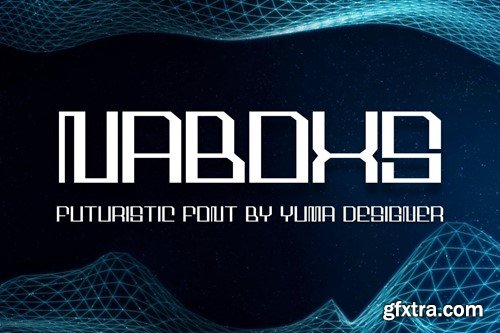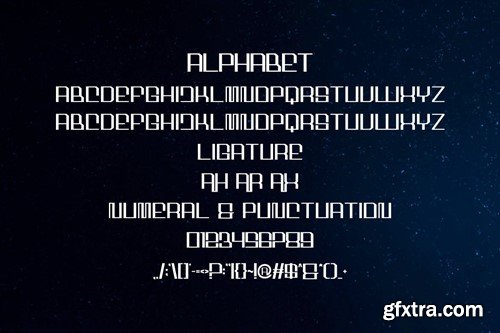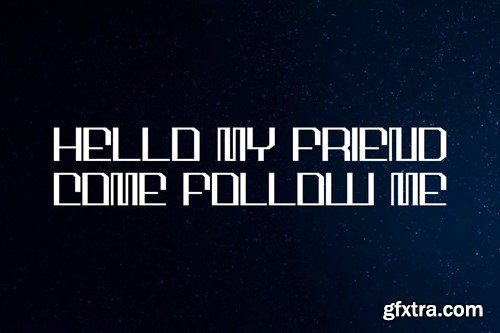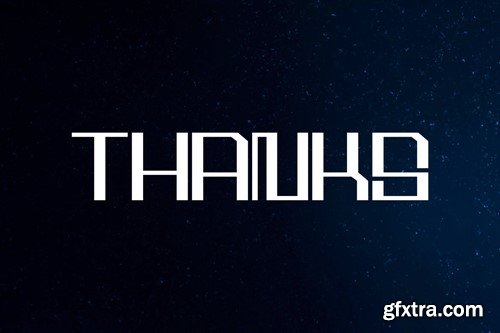
Naboxs - Futuristic Font CDNZAT6
Naboxs - Futuristic Font
Introducing Naboxs Font. Naboxs is a modern and simple font, best used as a display for headings, logos, branding, magazines, product packaging and invitations. Naboxs come with clean lines and smooth curves give any project an extra touch of class. What you get: Thank you.